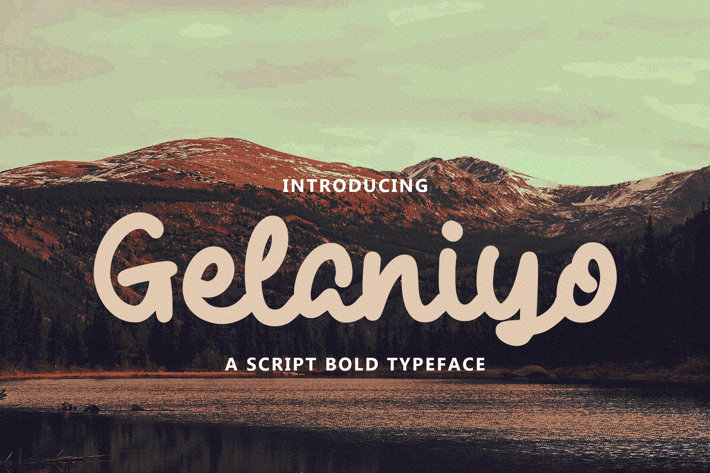
Gelaniyo - a Script Bold Typeface
Gelaniyo is a bold connected script font. This font is great for your next creative project such as logos, printed quotes, invitations, cards, product packaging, headers, Logotype, Letterhead, Poster, Apparel Design, Label, and etc.
Gelaniyo Font includes Upper and Lowercase Basic Characters, Numbers and Punctuation.